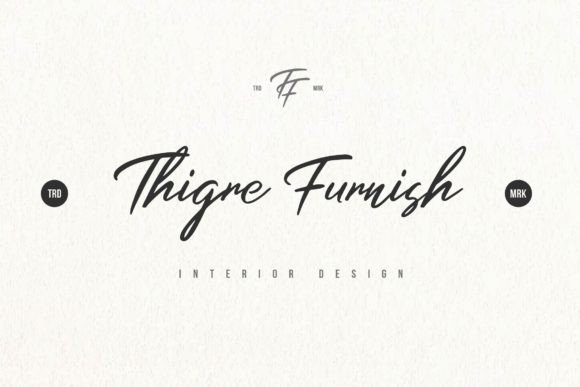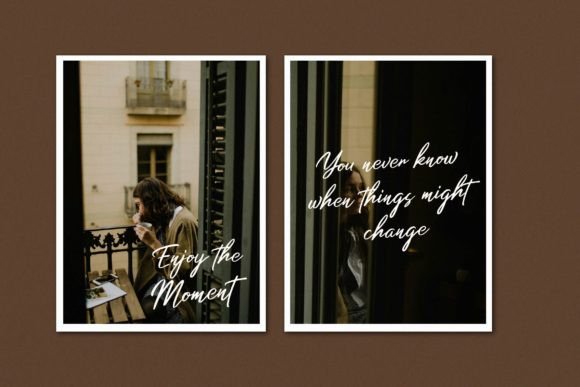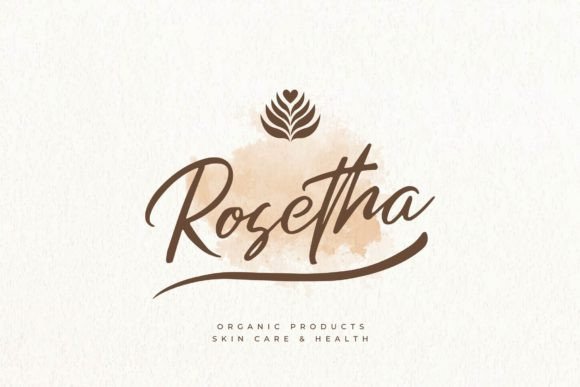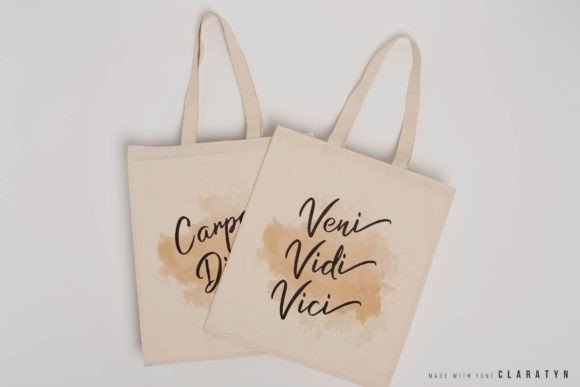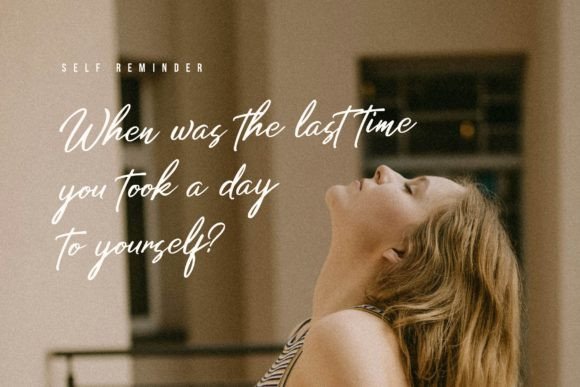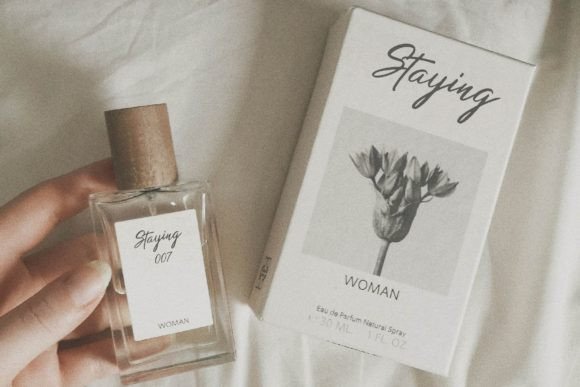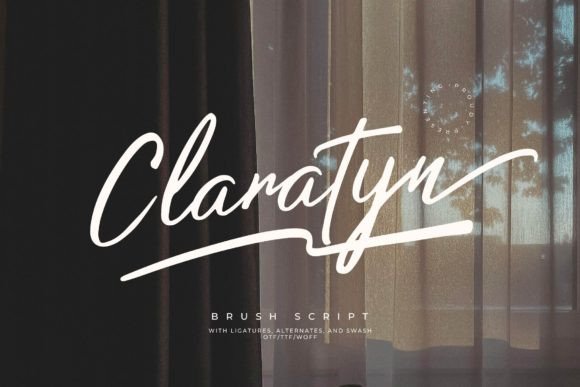
Introducing Claratyn Font: The Perfect Brush Script for Your Creative Projects
Are you a designer or crafter looking for a unique and stylish font to elevate your projects? Look no further than Claratyn Font, a beautiful brush script font that is perfect for a wide range of applications. From logos and branding projects to homeware designs, product packaging, and more, Claratyn Font is the ideal choice for anyone seeking a touch of elegance and sophistication.
What is Claratyn Font?
Claratyn Font is a brush script font that is designed to mimic the look and feel of handwritten script. With its flowing lines and delicate strokes, this font is perfect for creating beautiful and eye-catching designs that are sure to stand out. Whether you’re working on a logo, a poster, or a product label, Claratyn Font is the perfect choice for adding a touch of personality and style.
What Can I Use Claratyn Font For?
Claratyn Font is incredibly versatile and can be used for a wide range of projects, including:
- Logos and branding projects: Create a unique and memorable logo that reflects your brand’s personality and style.
- Homeware designs: Add a touch of elegance to your homeware designs, such as ceramics, textiles, and wallpaper.
- Product packaging: Make your product packaging stand out with Claratyn Font, perfect for labels, cartons, and more.
- Mugs and ceramics: Add a personal touch to your mugs, plates, and other ceramics with this beautiful brush script font.
- Quotes and posters: Create inspiring and eye-catching quotes and posters that are sure to grab attention.
- Shopping bags and t-shirts: Add a touch of style to your shopping bags and t-shirts with Claratyn Font.
- Book covers and name cards: Create beautiful and professional-looking book covers and name cards with this elegant font.
- Invitation cards and greeting cards: Add a touch of sophistication to your invitation cards and greeting cards.
- Labels and photography: Use Claratyn Font to create beautiful labels and watermarks for your photography projects.
- Special events: Create stunning designs for special events, such as weddings, birthdays, and anniversaries.
Why Choose Claratyn Font?
So why choose Claratyn Font for your projects? Here are just a few reasons:
- Unique and stylish: Claratyn Font is a one-of-a-kind brush script font that is sure to add a touch of personality to your designs.
- Elegant and sophisticated: This font is perfect for creating elegant and sophisticated designs that are sure to impress.
- Versatile: Claratyn Font can be used for a wide range of projects, from logos and branding to homeware designs and product packaging.
Tips for Using Claratyn Font
Here are a few tips for using Claratyn Font in your projects:
- Experiment with different sizes: Claratyn Font looks great in a variety of sizes, from small and delicate to large and bold.
- Pair with other fonts: Try pairing Claratyn Font with other fonts to create a unique and interesting look.
- Use for headlines and titles: This font is perfect for headlines and titles, adding a touch of elegance and sophistication to your designs.
- Use for body text: Claratyn Font can also be used for body text, creating a beautiful and flowing narrative.
Claratyn Font is a beautiful and versatile brush script font that is perfect for a wide range of creative projects. With its elegant and sophisticated style, this font is sure to add a touch of personality and style to your designs. Whether you’re a designer or crafter, Claratyn Font is the perfect choice for anyone seeking a unique and stylish font.